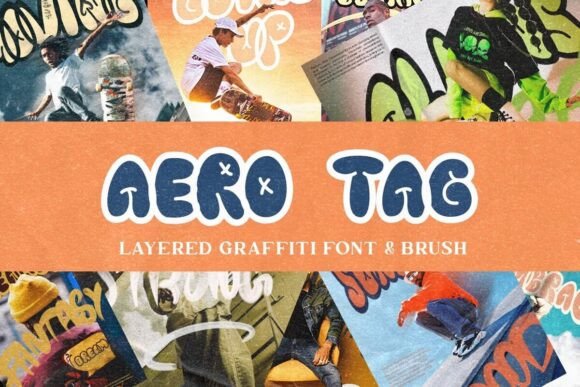
Aero Tag Font: Unleashing Urban Creativity with Graffiti Fonts and Procreate Brushes
In the realm of graphic design, creativity knows no bounds. The quest for unique and captivating visual elements is a continuous journey for designers and artists. Introducing Aero Tag, a revolutionary fusion of layered graffiti fonts and Procreate brushes that is set to transform the world of digital art. This comprehensive toolkit is designed to empower graphic designers, illustrators, and artists with the vibrant and dynamic aesthetic of graffiti, bringing an urban edge to their creations.
The Ultimate Combination: Layered Graffiti Fonts and Procreate Brushes
Aero Tag is not just a font or a set of brushes; it’s an experience. This innovative pack combines the best of both worlds, offering a unique blend of bubble-style graffiti fonts and Aero tag-style Procreate brushes. The result is a dynamic toolkit that caters to a wide range of creative needs, from posters and logos to social media graphics and merchandise.
Bubble-Style Graffiti Fonts: Adding a Playful yet Bold Touch
Inspired by the energetic and fluid nature of graffiti, the Aero Tag font captures the essence of urban expression. Its bubble-style letters add a playful yet bold touch to any project, making it perfect for designers looking to infuse their work with a sense of fun and spontaneity. Whether you’re creating:
- Eye-catching posters that demand attention
- Memorable logos that leave a lasting impression
- Engaging social media graphics that spark conversations
- Trendy merchandise that resonates with a younger audience
The Aero Tag font is versatile and adaptable, ensuring that your designs stand out in any context. Its unique fusion of graffiti artistry brings a fresh perspective to the world of typography, allowing you to experiment with different styles and creative expressions.
Aero Tag-Style Procreate Brushes: Emulating Authentic Aerosol Techniques
Elevate your digital artwork with our Aero tag-style Procreate brushes, crafted with precision and attention to detail. These brushes emulate the authentic aerosol techniques used by graffiti artists with different styles of cap, offering a range of creative possibilities:
- Create stunning digital murals that mimic the urban landscape
- Develop intricate illustrations that showcase your technical skills
- Craft unique typography that pushes the boundaries of digital art
Our Procreate brushes are designed to provide versatility and authenticity, allowing you to bring the raw energy of graffiti to your digital canvas. With Aero Tag, you can experiment with different brush styles, from smooth and fluid to rough and textured, giving your artwork a distinctive and personalized look.
Unleashing Your Creativity with Aero Tag
Aero Tag is more than just a design tool; it’s a gateway to a world of creative possibilities. By combining the vibrancy of graffiti fonts with the versatility of Procreate brushes, this pack empowers you to:
- Experiment with new styles and techniques
- Push the boundaries of digital art
- Develop a unique visual identity that sets you apart
Whether you’re a seasoned designer or an emerging artist, Aero Tag provides the perfect platform to unleash your creativity and bring your ideas to life. With its user-friendly interface and extensive range of design elements, you can focus on what matters most – creating stunning artwork that resonates with your audience.
Key Features of Aero Tag
- Unique Fusion of Graffiti Fonts and Procreate Brushes: Experience the best of both worlds with our carefully crafted graffiti fonts and Procreate brushes.
- Vibrant and Dynamic Aesthetic: Add an urban edge to your designs with our bold and playful graffiti fonts.
- Versatile and Adaptable: Use Aero Tag for a wide range of creative projects, from posters and logos to social media graphics and merchandise.
- Authentic Aerosol Techniques: Emulate the techniques used by graffiti artists with our Procreate brushes, offering a range of creative possibilities.
- User-Friendly Interface: Easily navigate and customize our design elements to bring your ideas to life.
Aero Tag is a game-changer for graphic designers, illustrators, and artists looking to infuse their work with the vibrant and dynamic aesthetic of graffiti. By combining layered graffiti fonts with Procreate brushes, this innovative pack offers a unique toolkit for creative expression. Whether you’re looking to add an urban edge to your designs or experiment with new styles and techniques, Aero Tag provides the perfect platform to unleash your creativity and bring your ideas to life.